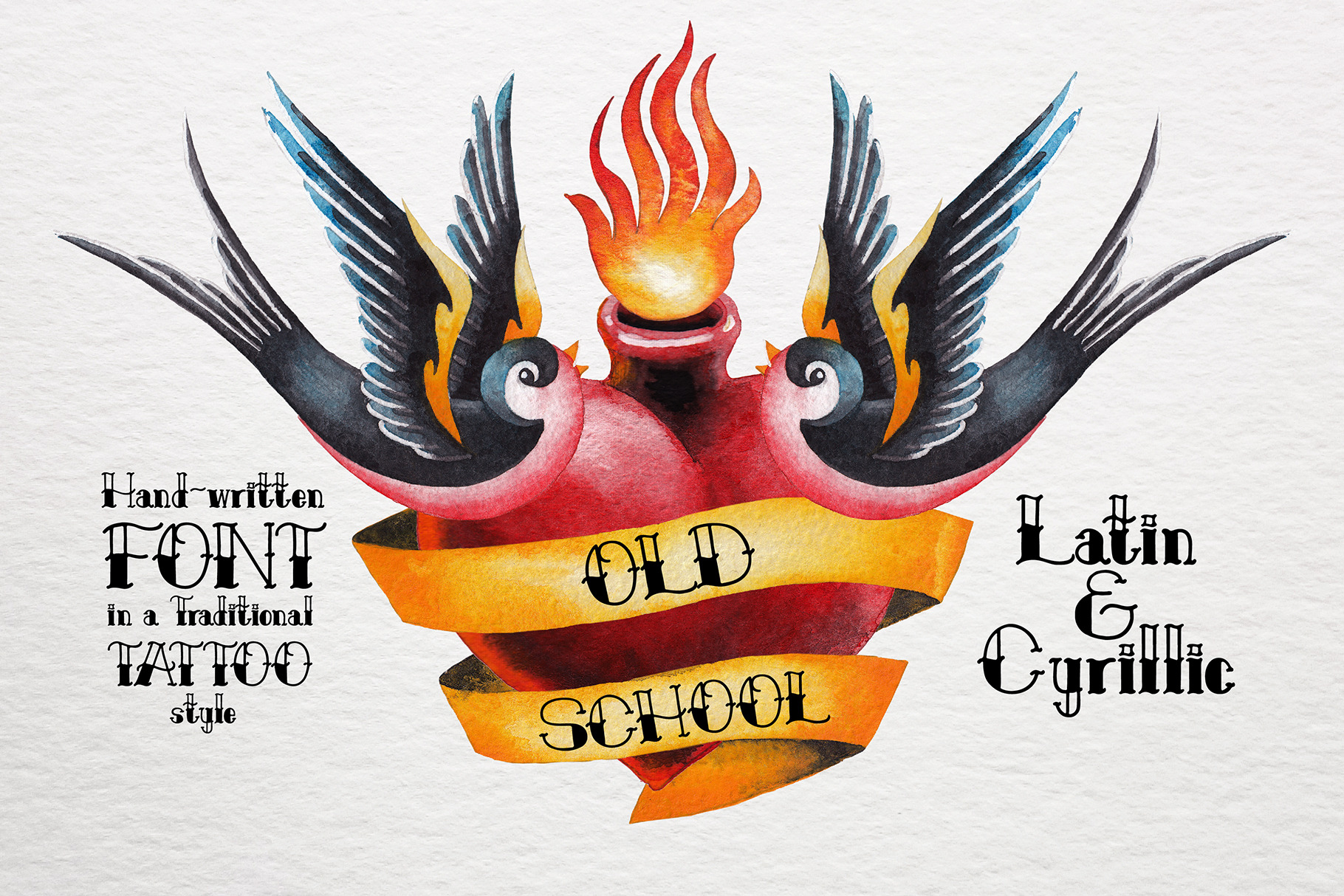
Old school font
OLD SCHOOL is a simple hand-written font in traditional tattoo style.
Font features:
- support of BASIC LATIN & CYRILLIC characters (please, check your text in the box above to see if your language is available).
- UPPERCASE & LOWERCASE characters